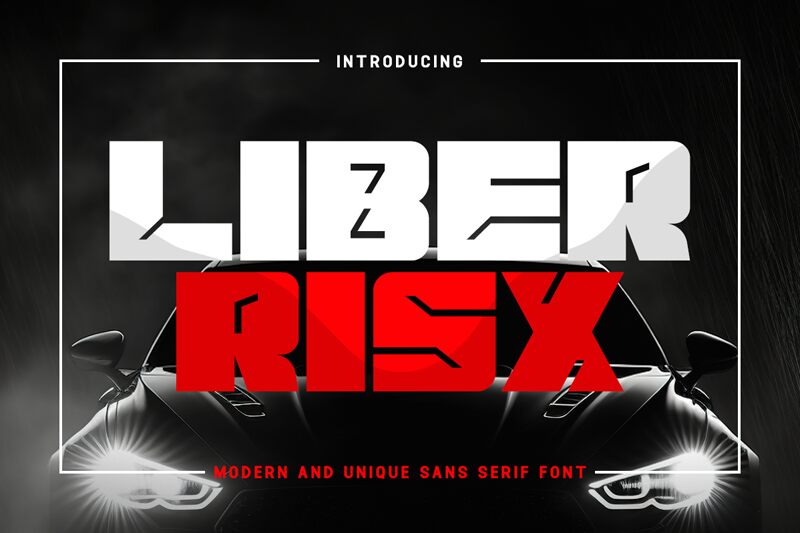
Liberisx font is a techno typeface designed by Kong Font, featuring a futuristic and bold character. This free font pairs dynamic and geometric elements which add an edgy style to the final text design. Its impacts as a modern suitable addition to projects demanding a fresh, current visual. Use it in print or digital; it delivers impressive typographic statements regardless of the surrounding environment. Use it in titles, texts, or even logotypes.
Liberisx is suitable for movie posters, book covers, branding designs, invitations, websites, and other digital interfaces. Its modern and dynamic aesthetic can beautifully fit in fashion, media, and packaging targeted at a younger audience. Other uses include magazines, catalogs, and presentations that require an attention-grabbing font.